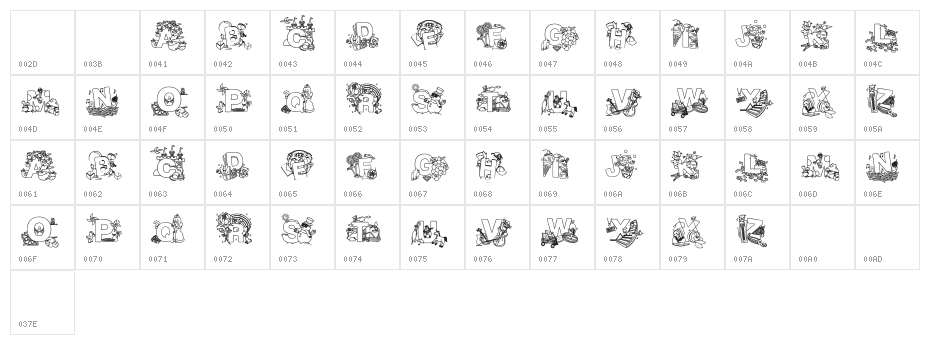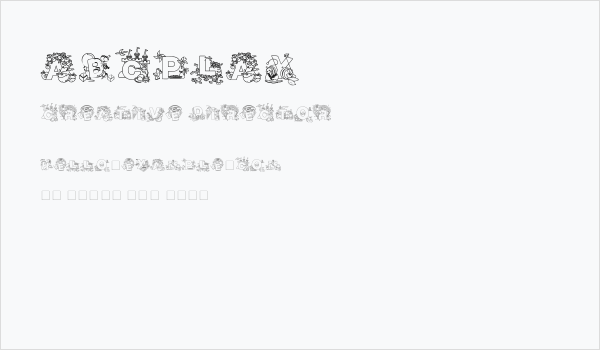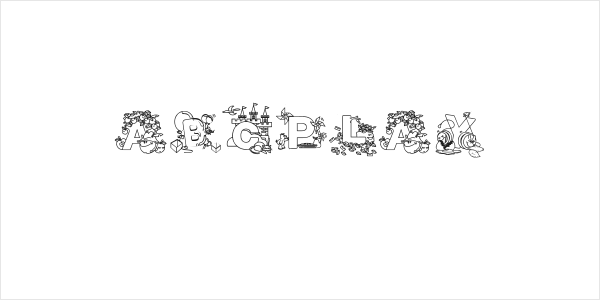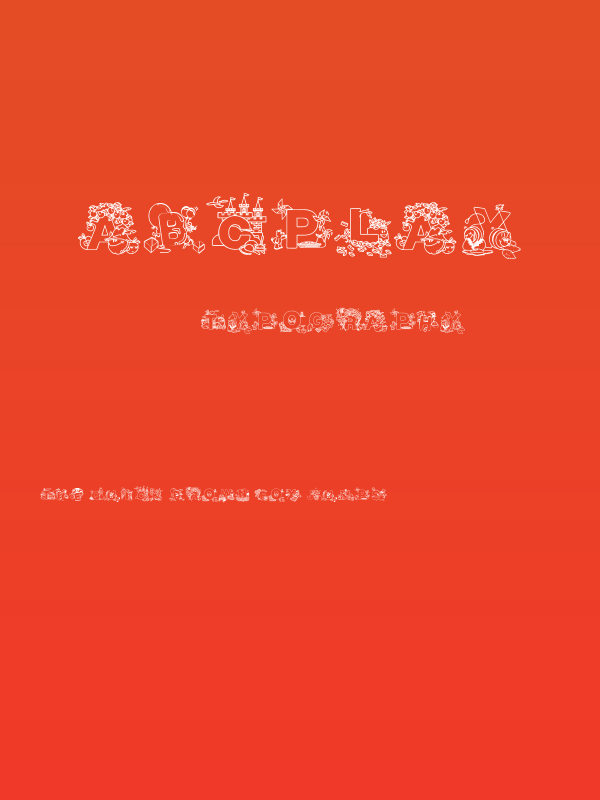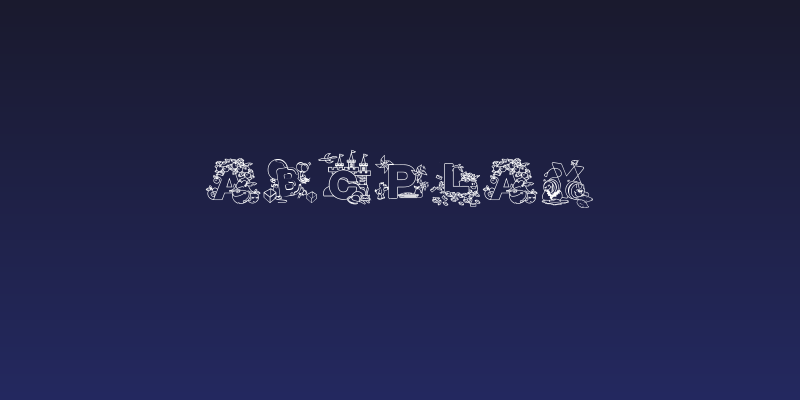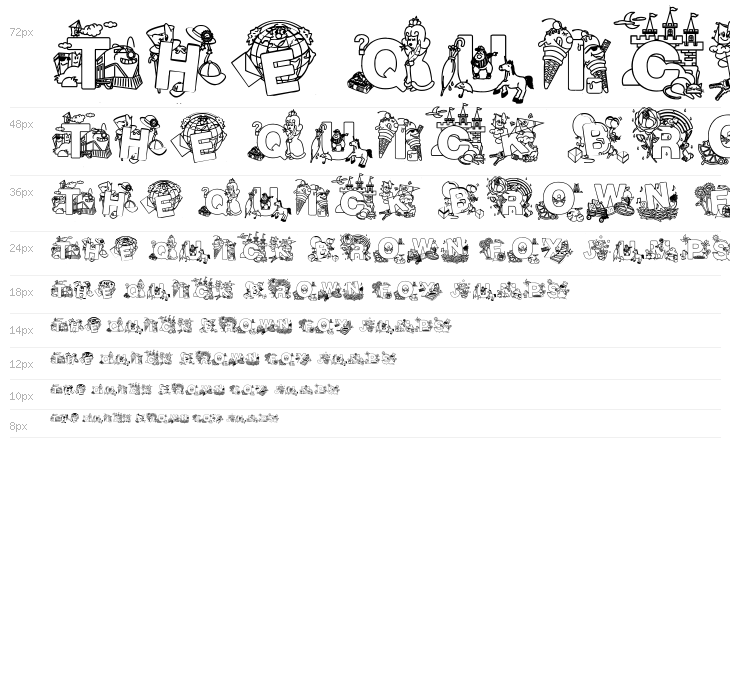
ABCPlay Font
ABCPlay Description
This playful and decorative font features each letter adorned with whimsical illustrations, creating a lively and engaging appearance. The characters are filled with various elements, such as animals, plants, and objects, making each letter unique and visually interesting. The style is highly detailed, with intricate line work that adds depth and character to the font. This font is perfect for projects that require a fun and imaginative touch, appealing to both children and adults. Its artistic nature makes it ideal for creative and informal settings.
| Proposed Projects | Ideal for children's books, playful posters, creative invitations, and educational materials. |